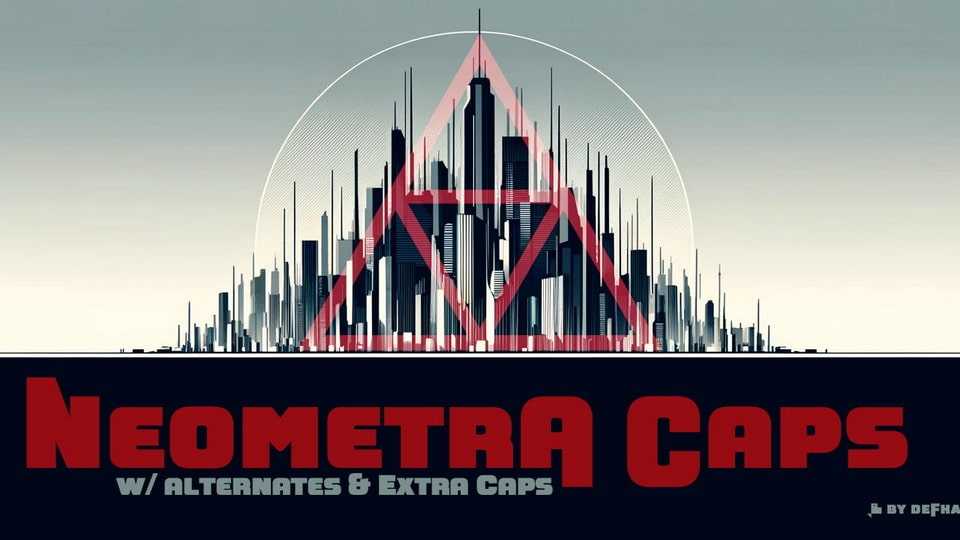
Download Neometra Caps font, the new sans serif typeface, extremely thick and square in proportion, designed to stand out in any graphic project.
Designer: Fernando Haro